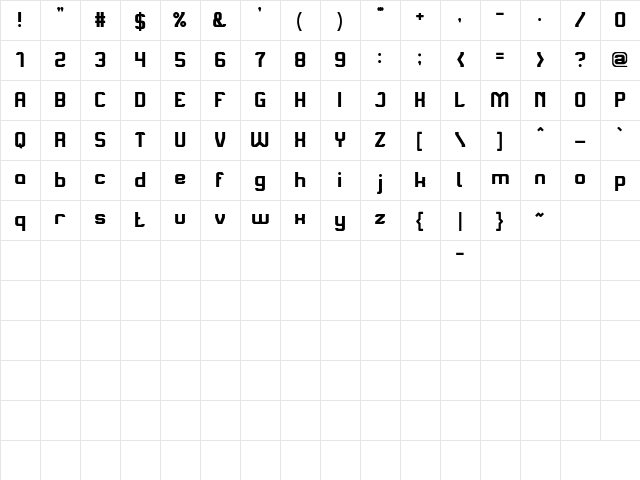
Alive in a Science Fiction Regular Free Font
Alive in a Science Fiction Regular
Design Context for Alive in a Science Fiction
Alive in a Science Fiction is a composed and adaptable typeface that performs quietly and consistently across a wide range of design contexts.
Pro Tip: Use Alive in a Science Fiction in both headline and body roles to test its range before committing to a single application.